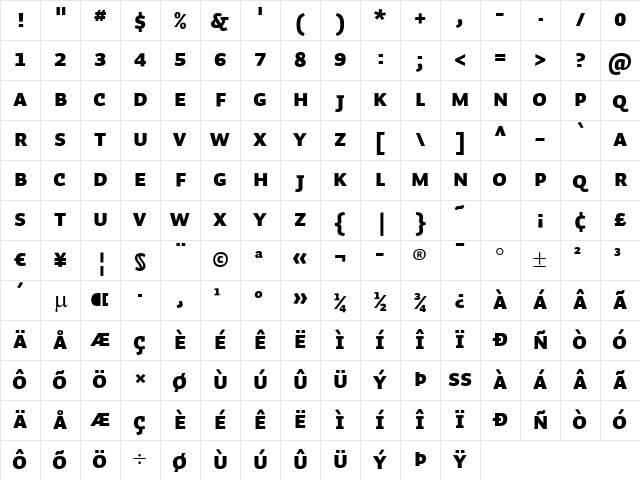
Auto 1 Black SmCp Free Font
Auto 1 Black SmCp
Style: Black SmCp
Design Context for Auto 1
Auto 1 is a composed and adaptable typeface that performs quietly and consistently across a wide range of design contexts.